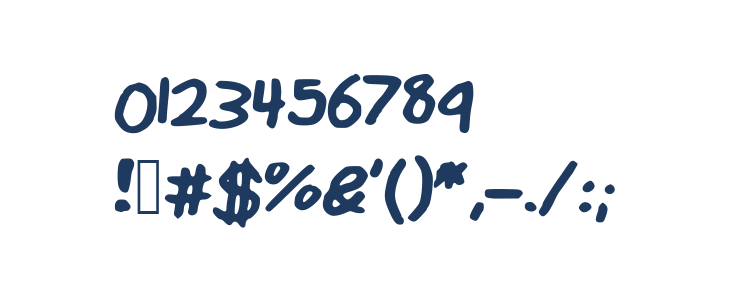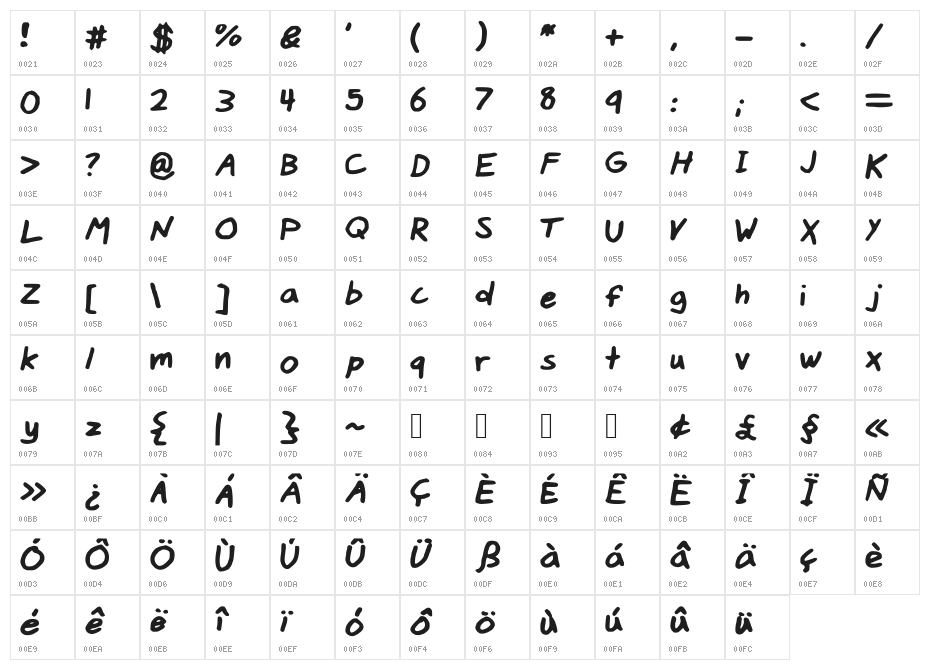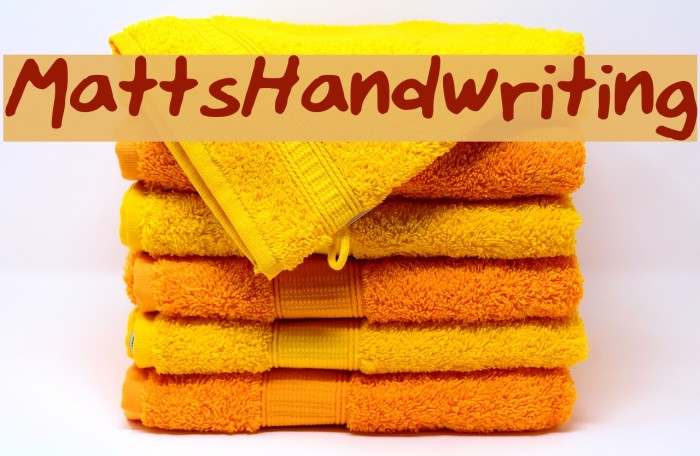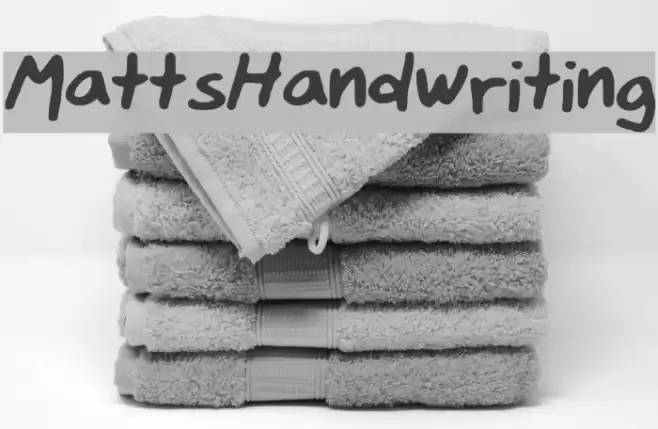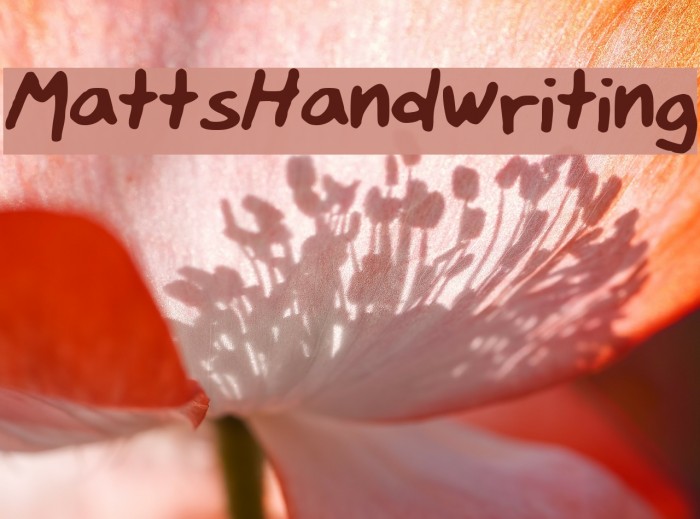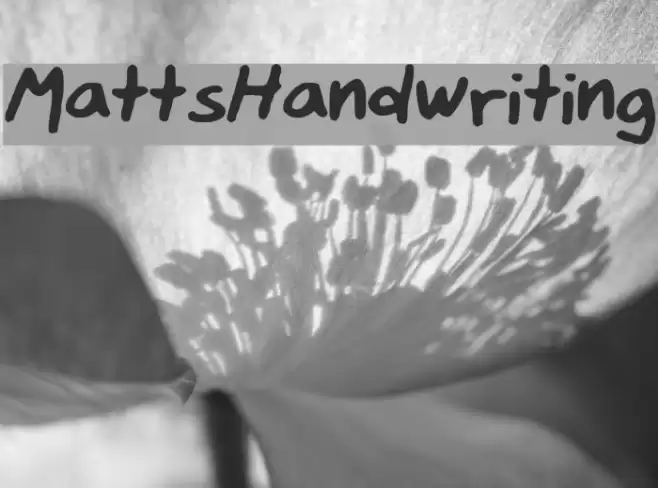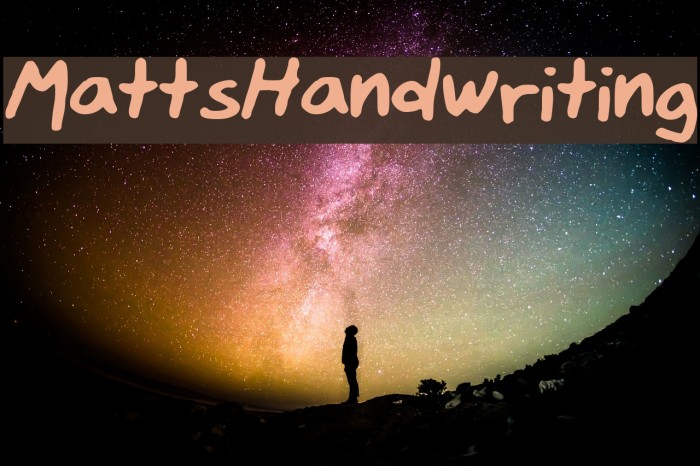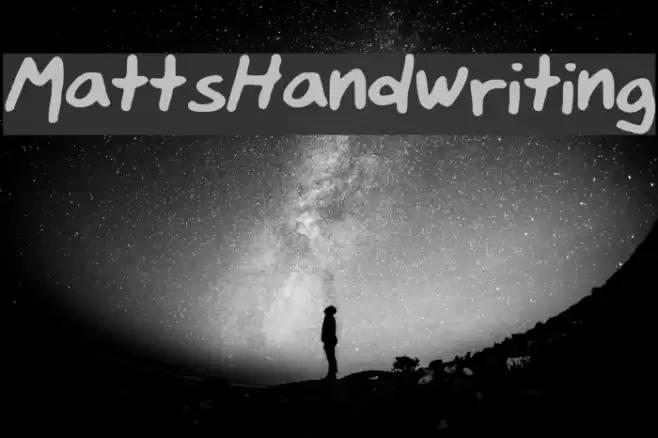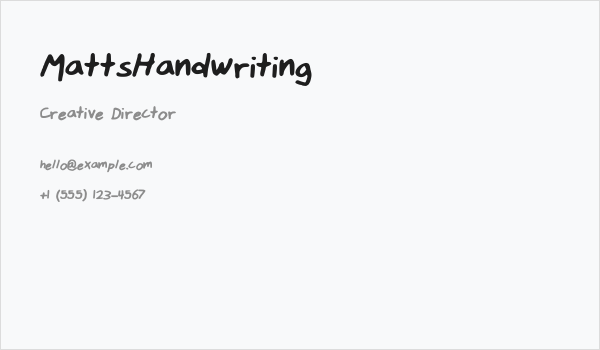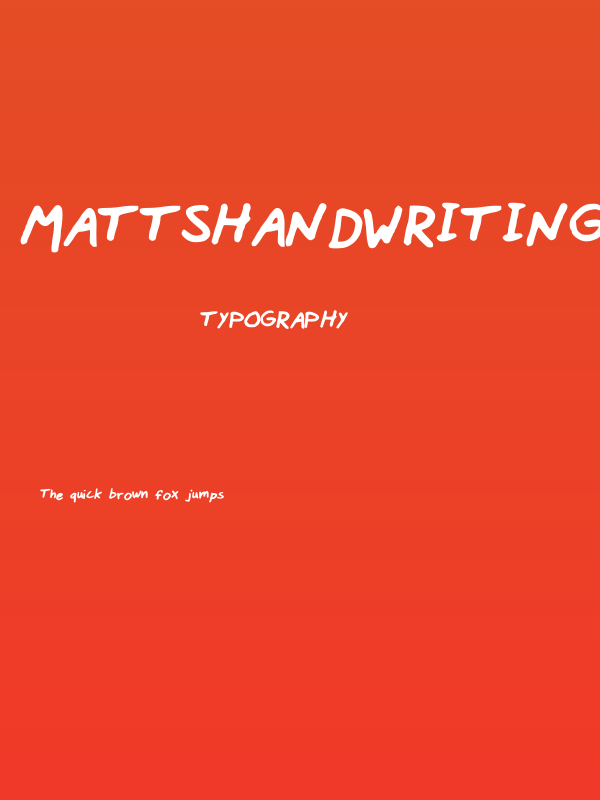
MattsHandwriting Font
MattsHandwriting Description
This font exudes a casual and personal touch, reminiscent of authentic handwriting. Each character is crafted with a smooth, flowing style that mimics the natural variations found in handwritten text. The letters are slightly slanted, adding to the informal and approachable feel. The strokes are consistent in thickness, providing a balanced and cohesive look across all characters. This font is versatile, suitable for projects that require a personal or informal tone, such as invitations, personal notes, or creative projects. The overall appearance is both friendly and legible, making it an excellent choice for conveying warmth and personality.
| Overall Style | Casual, Personal |
| Use Case | Headlines, Personal notes, Creative projects |
| Proposed Projects | Ideal for invitations, personal notes, greeting cards, and creative projects requiring a personal touch. |